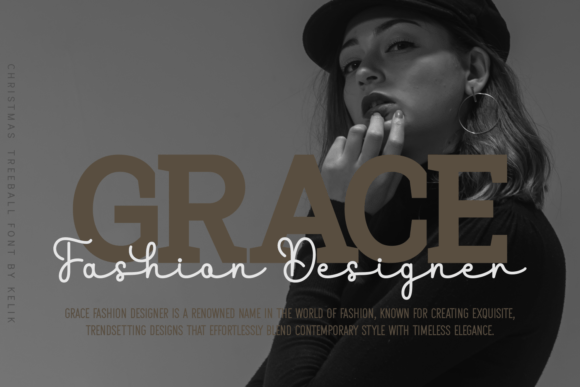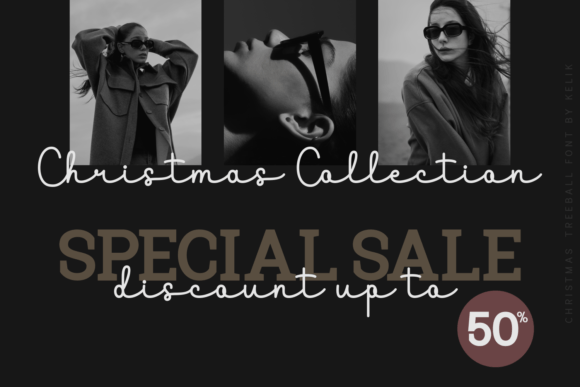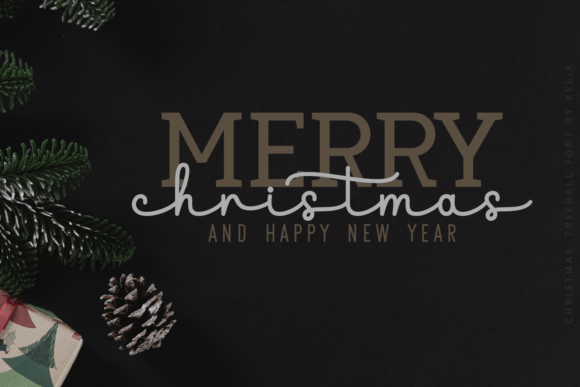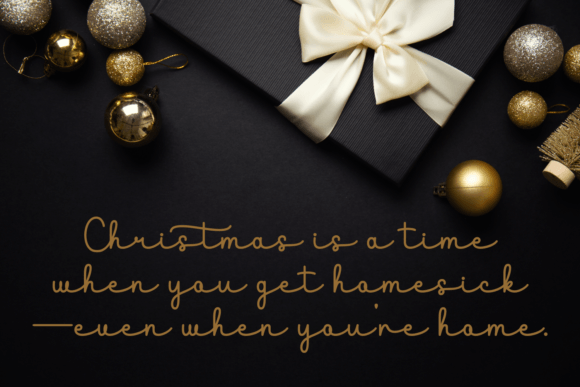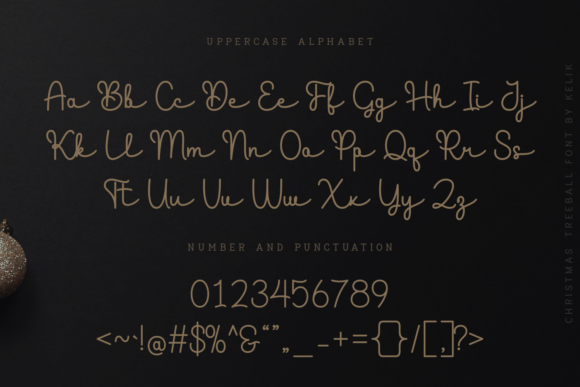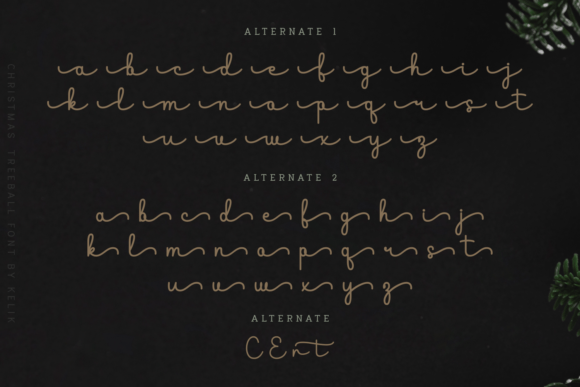
Introducing Christmas Treeball Font: The Ultimate Holiday Decor Inspiration
Are you tired of using the same old fonts for your holiday projects? Look no further than the Christmas Treeball Font, a stunning handwritten font that’s sure to become your new favorite. With its perfect blend of classic calligraphic influences and modern freshness, this font is the perfect addition to any designer’s toolkit.
The Story Behind Christmas Treeball Font
Christmas Treeball Font is a masterpiece of font design, carefully crafted to evoke the magic and wonder of the holiday season. Its creator, a talented typographer, drew inspiration from traditional calligraphy to create a font that’s both elegant and playful. The result is a font that’s perfect for a wide range of projects, from holiday cards and invitations to festive packaging and marketing materials.
What Makes Christmas Treeball Font So Special?
So, what sets Christmas Treeball Font apart from other fonts on the market? Here are just a few of its standout features:
- Exquisite Handwritten Style: Christmas Treeball Font is a beautifully crafted handwritten font, with each letter carefully designed to showcase its unique character and charm.
- Classy Calligraphic Influences: The font’s calligraphic roots give it a sophisticated, high-end feel that’s perfect for luxury brands and high-end designs.
- Contemporary and Fresh: Despite its classic influences, Christmas Treeball Font feels modern and fresh, making it perfect for designers looking to create cutting-edge holiday designs.
Whether you’re a professional designer or a crafter looking to add a personal touch to your holiday projects, Christmas Treeball Font is the perfect choice. Here are just a few ways you can use this versatile font:
- Holiday Cards and Invitations: Use Christmas Treeball Font to create beautiful, one-of-a-kind holiday cards and invitations that will make your loved ones feel special.
- Festive Packaging: Add a touch of elegance to your holiday packaging with Christmas Treeball Font, perfect for luxury brands and small businesses.
- Social Media Graphics: Create eye-catching social media graphics that will help your brand stand out during the holiday season.
- Crafting Projects: Use Christmas Treeball Font to add a personal touch to your holiday crafting projects, from scrapbooking to woodworking.
Tips for Using Christmas Treeball Font
To get the most out of Christmas Treeball Font, here are a few tips to keep in mind:
- Pair it with a Bold Font: For maximum impact, pair Christmas Treeball Font with a bold, contrasting font to create visual interest and hierarchy.
- Experiment with Colors: Don’t be afraid to experiment with different colors and textures to add depth and personality to your designs.
- Use it Sparingly: While Christmas Treeball Font is beautiful, it can be overwhelming if overused. Use it sparingly to create emphasis and add visual interest.
In conclusion, Christmas Treeball Font is a true gem that’s sure to become your go-to font for all your holiday design needs. With its exquisite handwritten style, classy calligraphic influences, and modern freshness, this font is the perfect addition to any designer’s toolkit. So why wait? Fall in love with Christmas Treeball Font and bring your holiday projects to the highest levels!